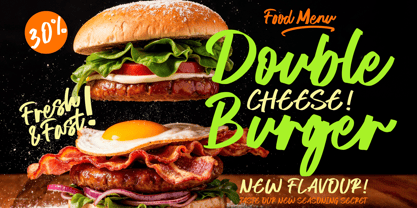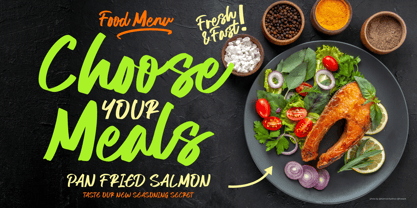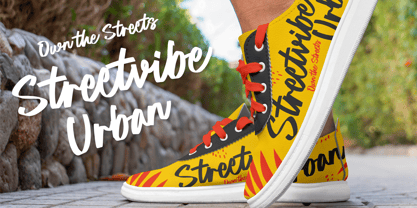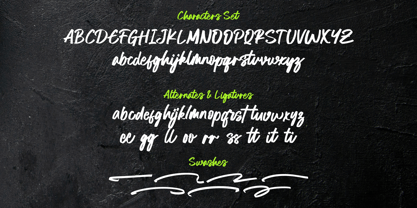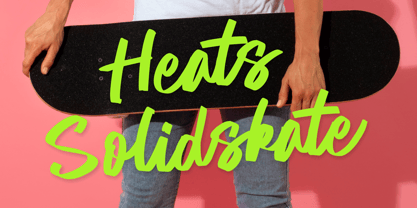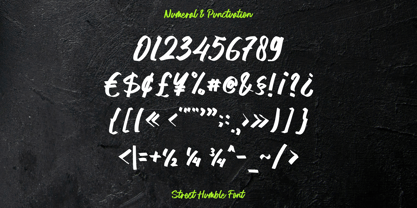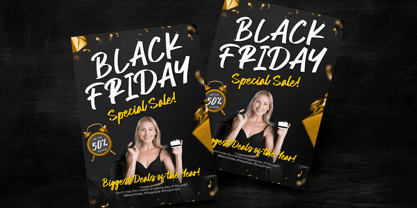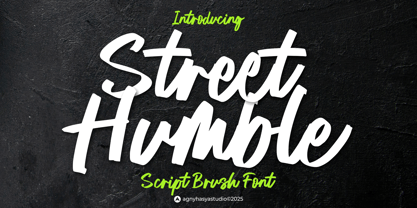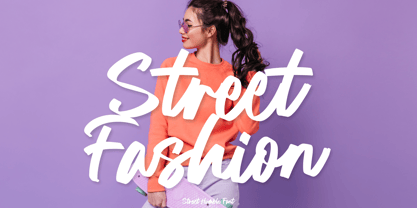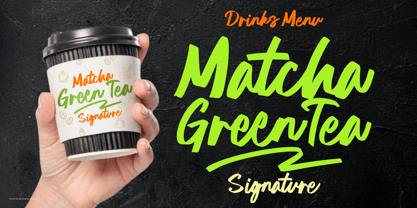
Street Humble
by Agny Hasya Studio
The Street Humble Font Family was designed by Firman Maulana and published by Agny Hasya Studio. Street Humble contains 1 styles. More about this family
Street Humble is a brush script font inspired by the vibrant expression of urban street art and the freestyle motion of casual marker strokes.
It combines a bold, streetwise spirit with a touch of modern-classic flair, making it a versatile choice for any creative project that seeks to stand out.
Full of energy and attitude, Street Humble captures the rhythm of the streets in every stroke, bold, dynamic, and full of movement.
Additionally, it supports multilingual characters, making it an excellent choice for global creatives.
Designers: Firman Maulana
Foundry: Agny Hasya Studio